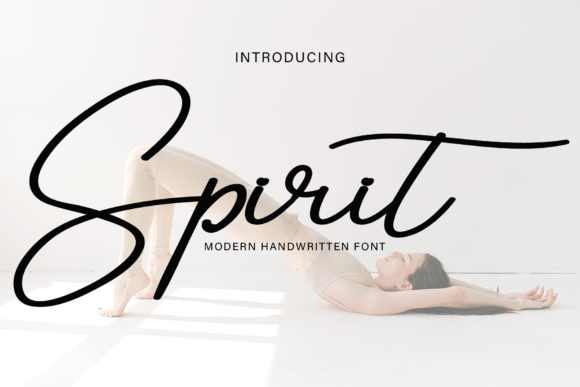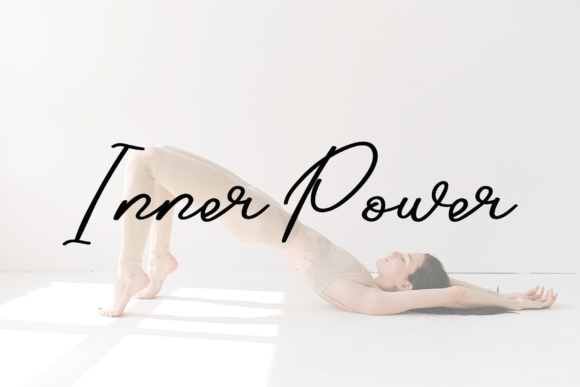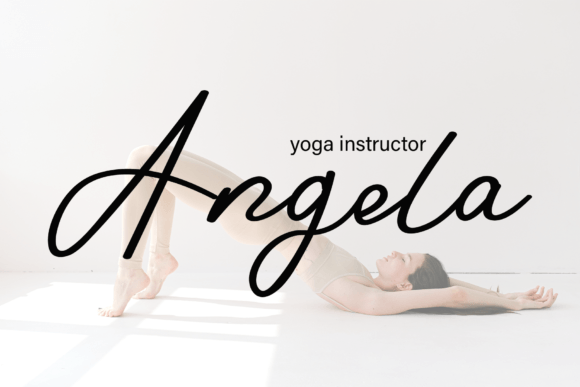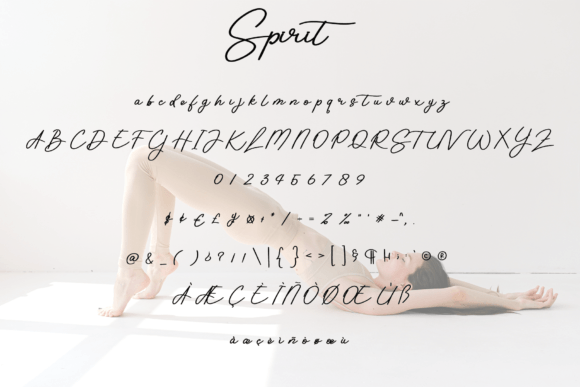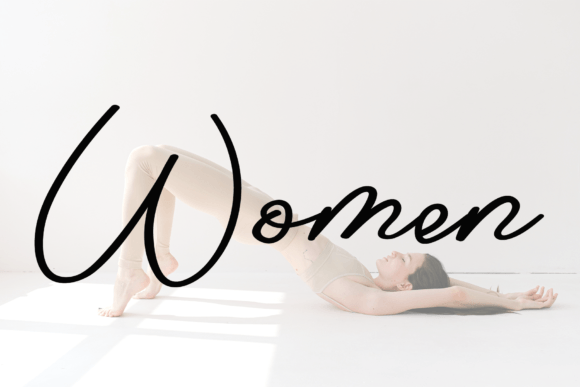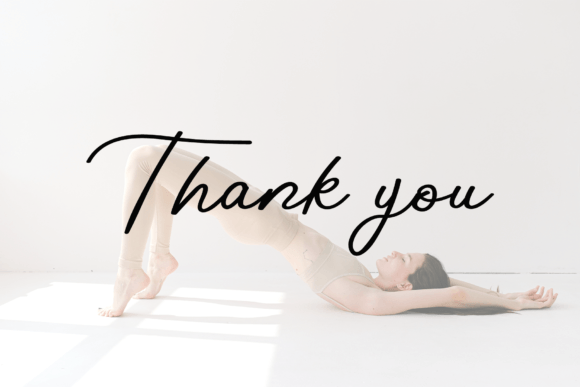
Spirit Font
About Spirit Font
“Spirit” is a lovely and sweet handwritten script font designed to bring a gentle and romantic touch to a variety of design ideas. With its charming and graceful style, this font enhances the beauty of your projects, adding a joyful and romantic element to each creative endeavor.
The handwritten script style of “Spirit” contributes to its lovely and sweet nature. The flowing strokes and elegant curves create a visually pleasing aesthetic, making it a perfect choice for projects that aim to convey warmth, affection, and a sense of romance.
The versatility of “Spirit” allows it to shine in various design contexts. Whether applied to headlines, titles, or body text, the font maintains its gentle and romantic appeal, ensuring that every part of your project is adorned with its charming style.
In romantic-themed projects, such as wedding invitations, love notes, or anniversary cards, “Spirit” becomes a key design element. Its sweet and joyful demeanor enhances the emotional impact of your messages, creating a beautiful and memorable experience for the audience.
“Spirit” is not only about aesthetics but also about the feelings it evokes. It adds a touch of elegance to your projects, making it suitable for creating visually stunning and emotionally resonant designs. Whether you’re working on posters, greeting cards, or social media graphics, “Spirit” contributes to a delightful and romantic atmosphere.
In summary, “Spirit” is more than just a font; it’s a design tool that brings a lovely and sweet touch to your creative projects. With its gentle and romantic character, “Spirit” enhances the visual appeal and emotional impact of each project, making it a delightful choice for those seeking to infuse joy and romance into their designs.